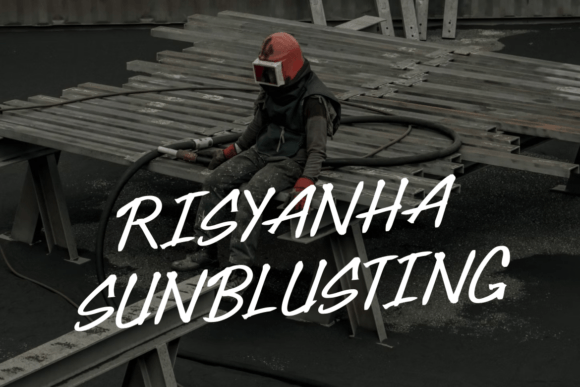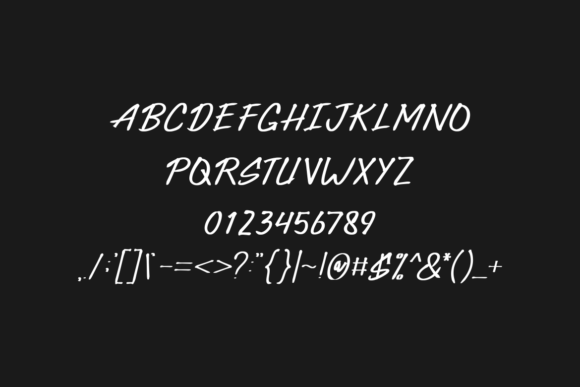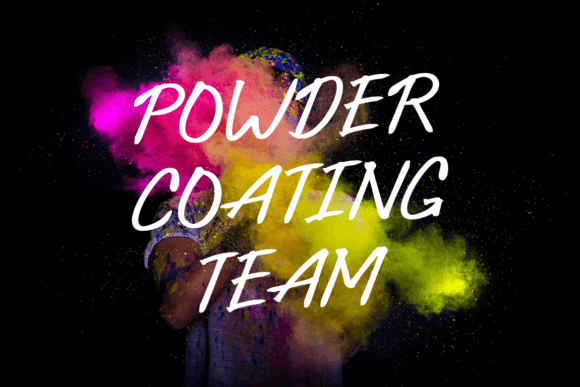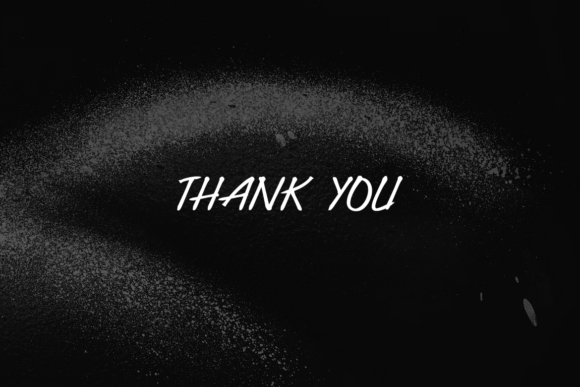
Introduction to Shushibrush Font
As you sit at your desk, surrounded by scattered papers, half-empty coffee cups, and a plethora of design references, the creative juices start to flow. You’re working on a new project, and the perfect font is just out of reach. But what if I told you that the perfect font is waiting for you, just a few clicks away? Welcome to the world of Shushibrush Font, a game-changing design resource that’s about to take your creative project to the next level.
With its unique, textured brush look and irregular baseline, Shushibrush Font is the perfect addition to any design. Whether you’re working on a title design for a new book, creating a logo for a brand, or simply need a font to give your social media posts some extra flair, Shushibrush Font is the ultimate design resource.
Key Features of Shushibrush Font
- Unique Hand-Drawn Design: Shushibrush Font features a distinctive, hand-drawn style that adds a personal touch to any creative project.
- Perfect for Creative Projects: Shushibrush Font is ideal for designers working on creative projects, such as branding, advertising, and editorial design.
- Easy to Customize: With its unique design, Shushibrush Font allows for easy customization, making it an excellent choice for designers who want to add a personal touch to their work.
Honest Review: Shushibrush Font
I recently stumbled upon the Shushibrush Font while searching for a high-quality design resource for a creative project. I was immediately drawn to its unique and quirky style, making it perfect for adding a touch of whimsy to my design.
- ✨ Unique and playful style that sets it apart from other fonts
- ⚠️ Limited character set, which may not be suitable for longer blocks of text
- ⚠️ May not be as versatile as other fonts, making it best suited for specific creative projects
Overall, I’m impressed with the Shushibrush Font and would definitely consider using it again for future design projects. Its unique style and high quality make it a valuable addition to any designer’s toolkit.
To get the most out of the Shushibrush Font, experiment with different font sizes, colors, and combinations. You can also use it as a design resource for creating eye-catching headings, titles, or even entire designs.
The Shushibrush Font is perfect for a variety of creative projects, including graphic designs, social media posts, and even business presentations. Its unique design makes it an excellent choice for anyone looking to add a touch of creativity to their work.